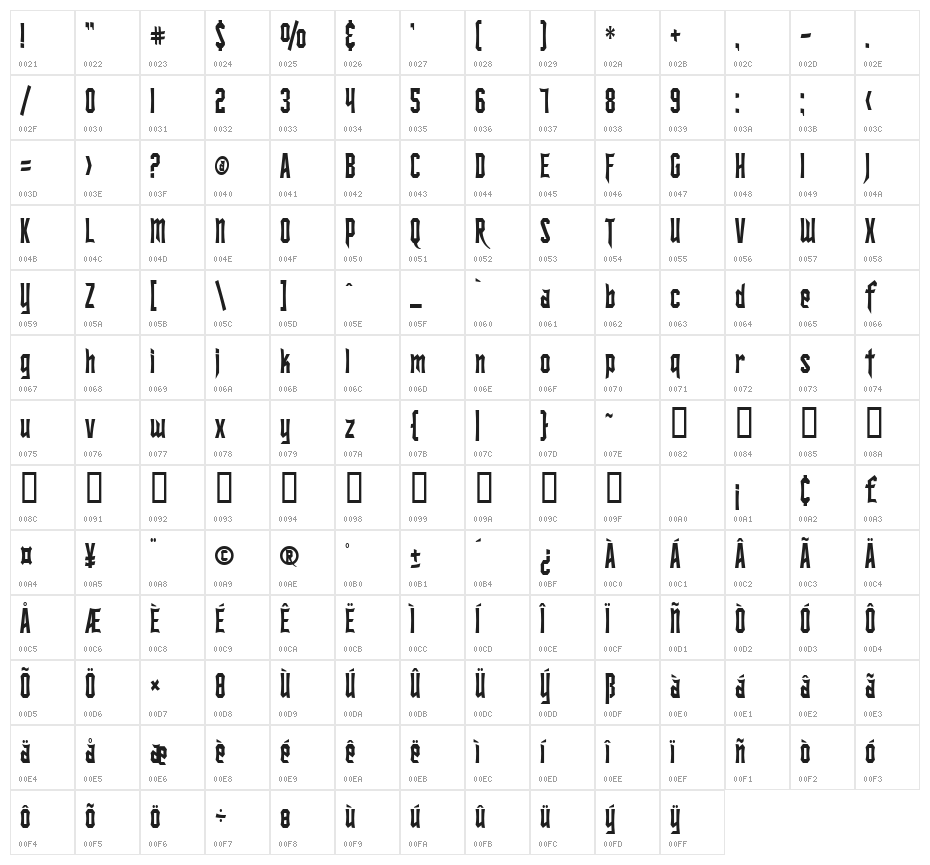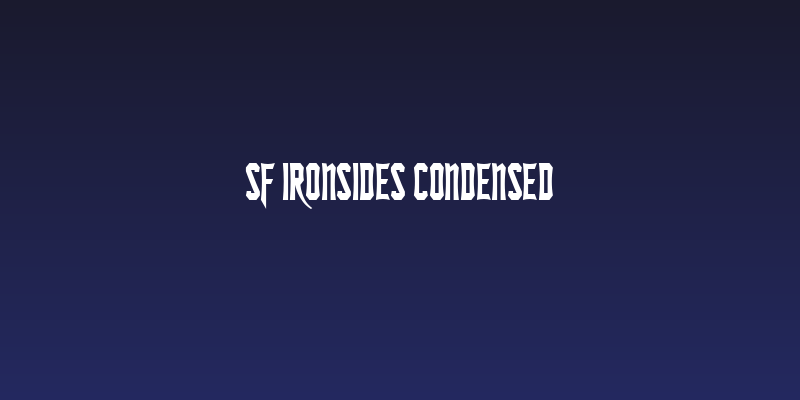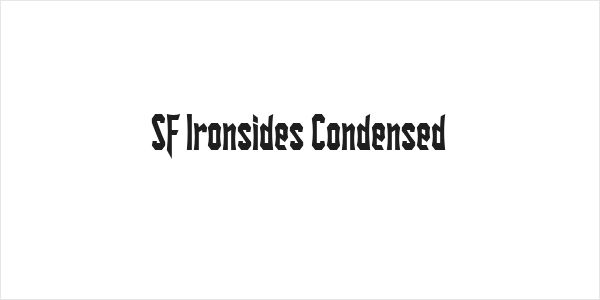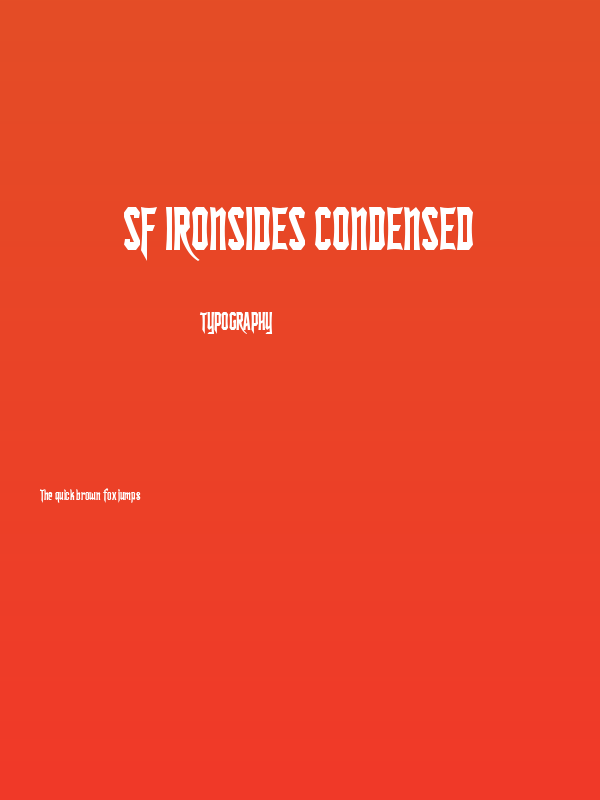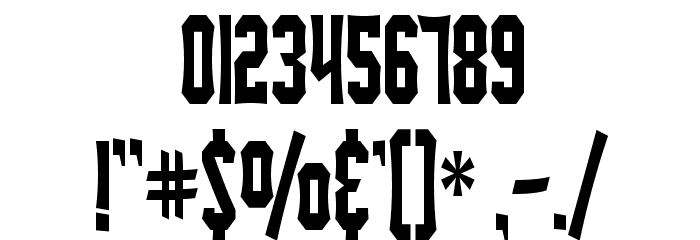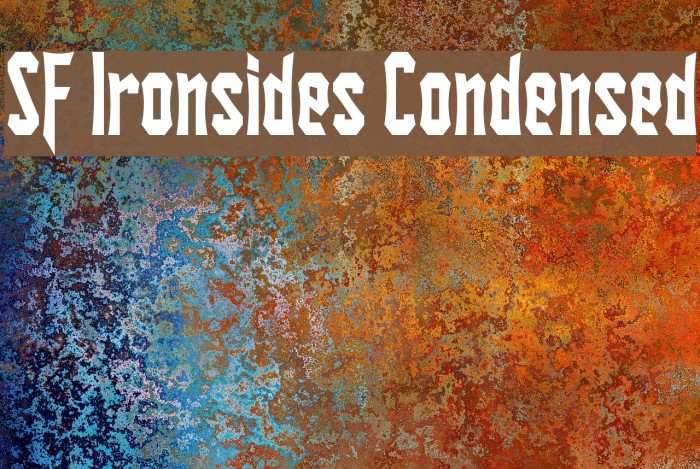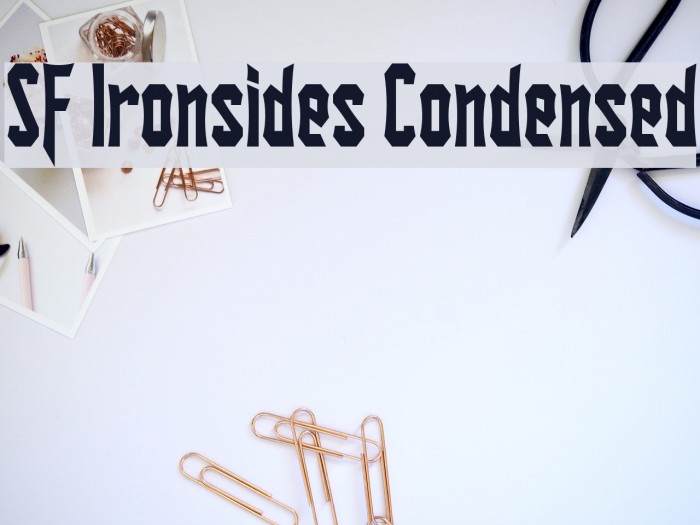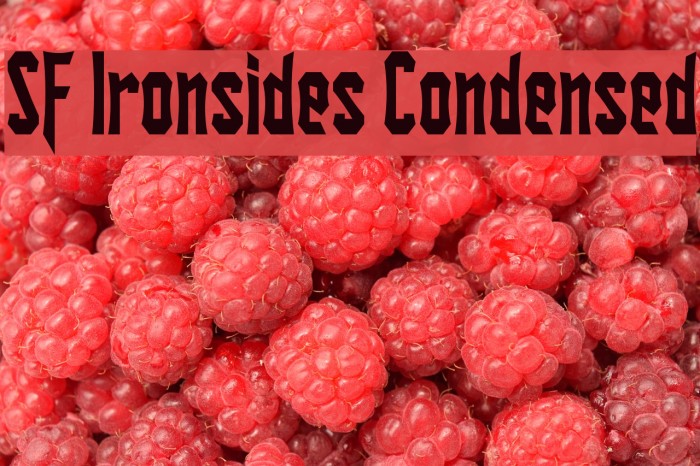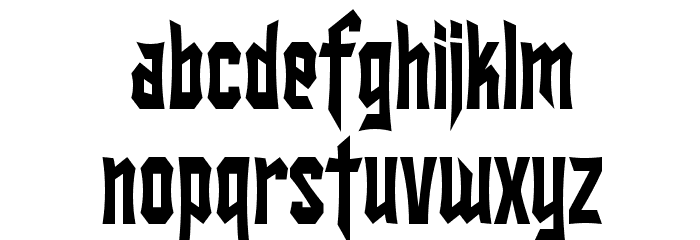
SF Ironsides Condensed Font
SF Ironsides Condensed Description
This font features a bold and condensed style with sharp, angular edges that give it a strong and impactful appearance. The uppercase and lowercase letters maintain a consistent height, contributing to its uniform look. The numbers and special characters are designed with the same angular and geometric style, ensuring cohesion across all characters. Its distinct, edgy design makes it suitable for attention-grabbing headlines and titles. The font's condensed nature allows for efficient use of space while maintaining readability.
| Proposed Projects | Perfect for posters, logos, branding materials, and any design project that requires a bold and striking visual impact. |